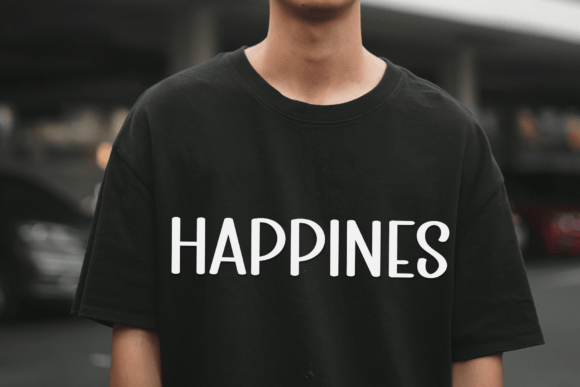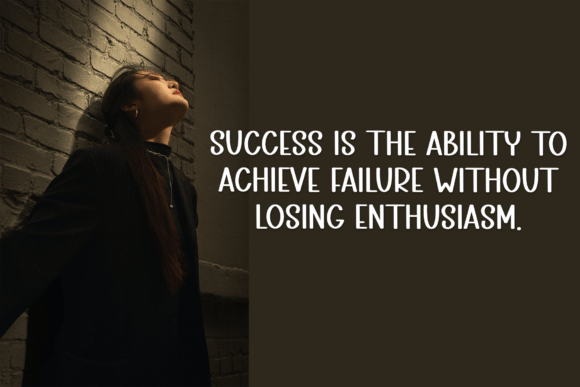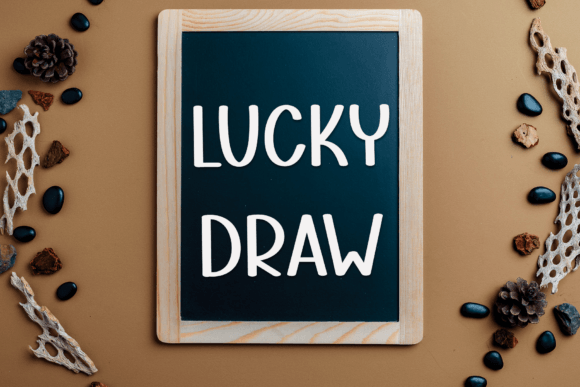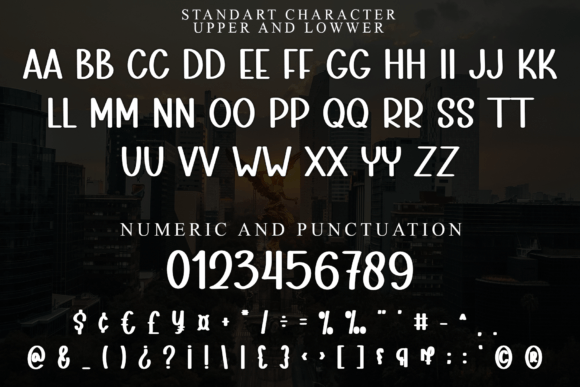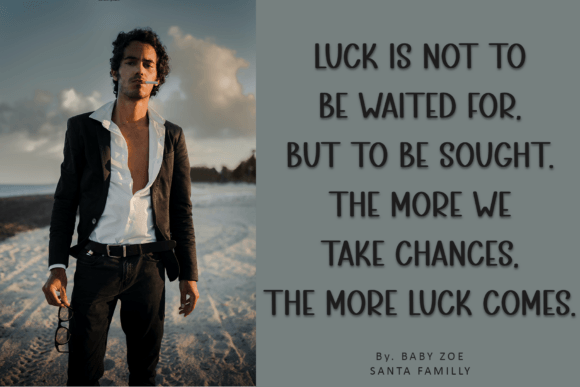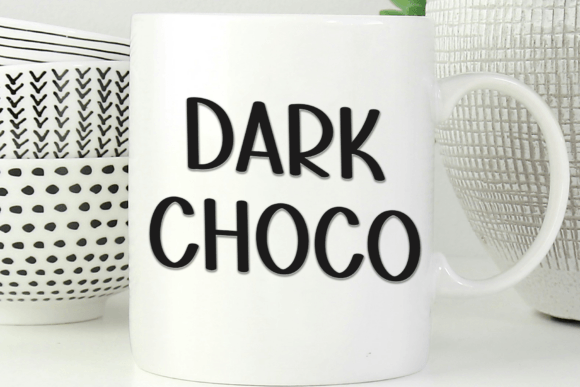
Introducing Christmas December Font: A Timeless Handwritten Delight
As the festive season approaches, designers and crafters are on the lookout for the perfect font to add a touch of magic to their creations. If you’re searching for a font that embodies the spirit of Christmas, look no further than Christmas December Font. This lovely and timeless handwritten font is the ideal choice for creating eye-catching logos, branding, and quotes that will leave a lasting impression.
A Unique and Beautiful Touch
One of the standout features of Christmas December Font is its unique and beautiful touch. Every letter has been carefully crafted to bring a sense of elegance and sophistication to your designs. The font’s handwritten style gives it a personal and organic feel, making it perfect for adding a touch of warmth and personality to your creations.
Whether you’re designing a logo, creating a social media graphic, or crafting a festive quote, Christmas December Font is the perfect choice. Its versatility and charm make it an excellent addition to any design project, and its timeless appeal ensures that it will remain a popular choice for years to come.
Christmas December Font is a dream come true for designers and crafters. Its ease of use and flexibility make it an excellent choice for a wide range of design projects, from branding and advertising to crafting and DIY. Whether you’re a professional designer or a hobbyist crafter, this font is sure to inspire your creativity and help you bring your ideas to life.
With Christmas December Font, you can create stunning designs that will capture the attention of your audience and leave a lasting impression. Its unique and beautiful touch adds a level of sophistication and elegance to your designs, making it perfect for high-end branding and advertising campaigns.
Key Features of Christmas December Font
- Timeless handwritten style: Christmas December Font features a beautiful, handwritten style that gives your designs a personal and organic feel.
- Unique and beautiful touch: Every letter has been carefully crafted to bring a sense of elegance and sophistication to your designs.
- Versatile and flexible: This font is perfect for a wide range of design projects, from branding and advertising to crafting and DIY.
- Ease of use: Christmas December Font is easy to use and can be easily integrated into your design projects.
Tips for Using Christmas December Font
To get the most out of Christmas December Font, here are a few tips to keep in mind:
- Use it sparingly: While Christmas December Font is beautiful, it’s best used sparingly to avoid overwhelming your design. Use it as an accent font to add a touch of elegance and sophistication.
- Pair it with a sans-serif font: Pairing Christmas December Font with a sans-serif font can create a beautiful contrast and add visual interest to your design.
- Experiment with colors and textures: Don’t be afraid to experiment with different colors and textures to add depth and interest to your design.
Christmas December Font is a timeless and lovely handwritten font that is perfect for designers and crafters looking to add a touch of magic to their creations. Its unique and beautiful touch, versatility, and ease of use make it an excellent choice for a wide range of design projects. Whether you’re creating a logo, branding, or quotes, this font is sure to inspire your creativity and help you bring your ideas to life.